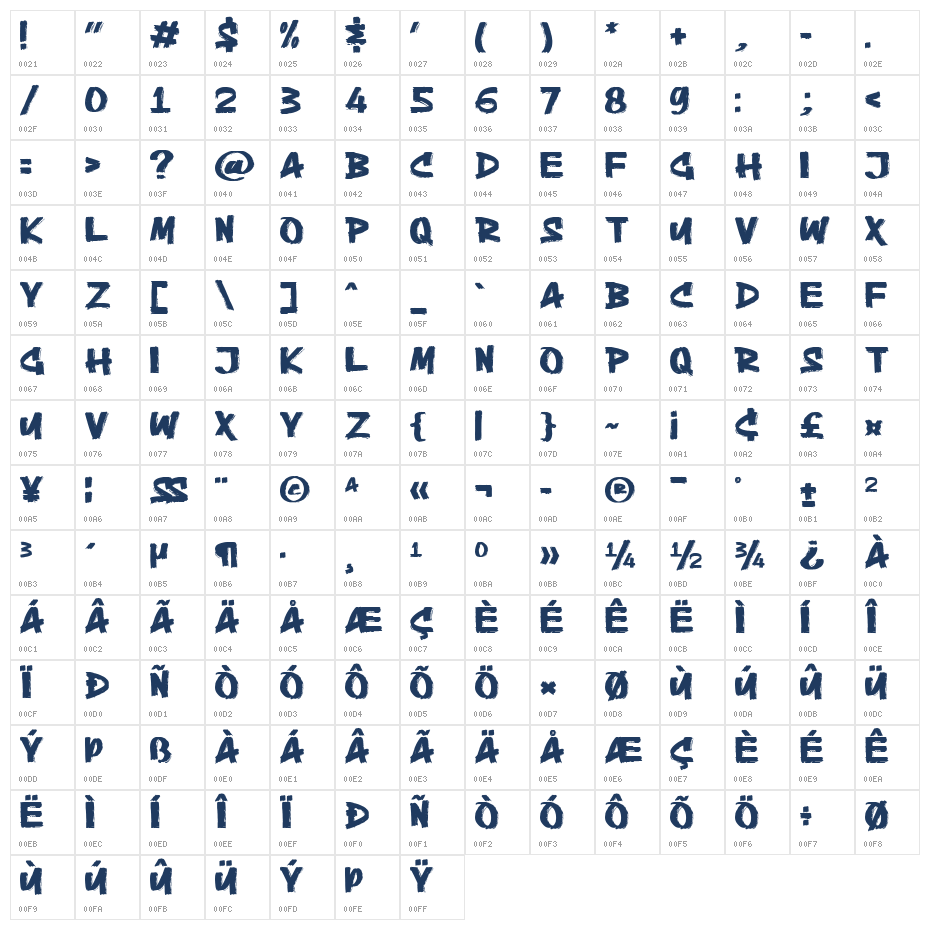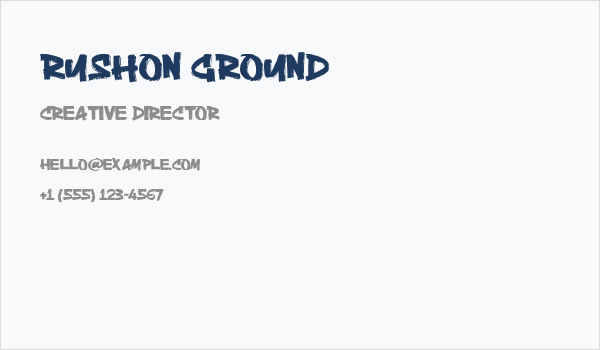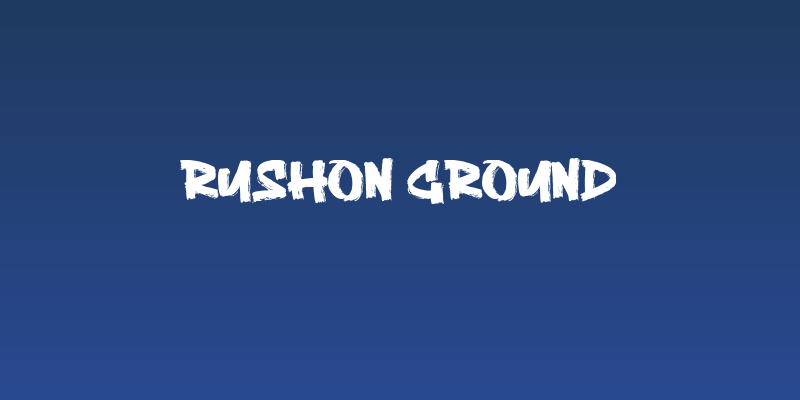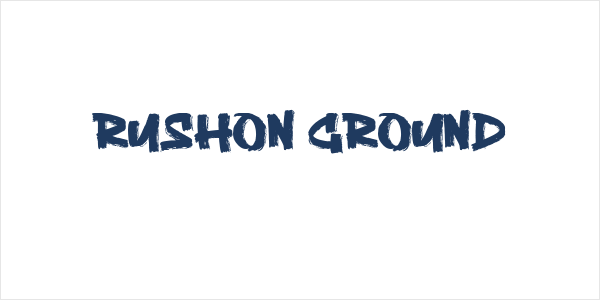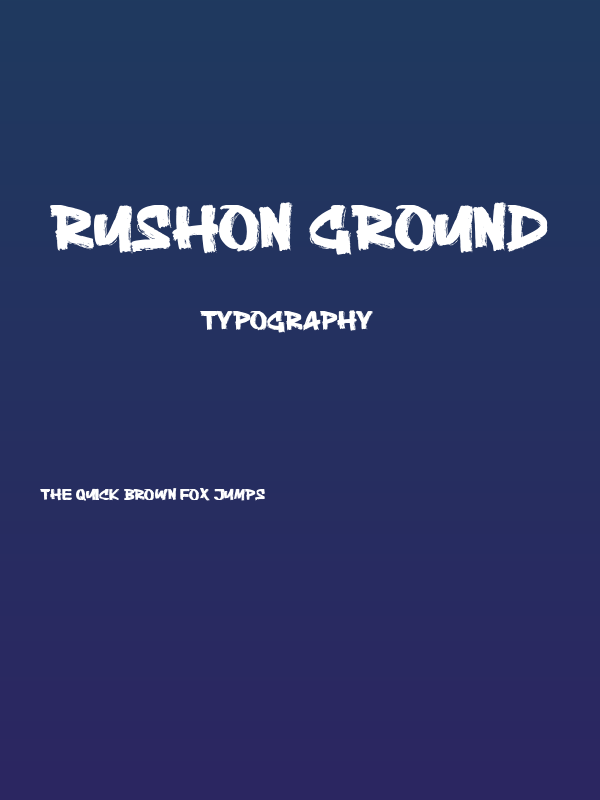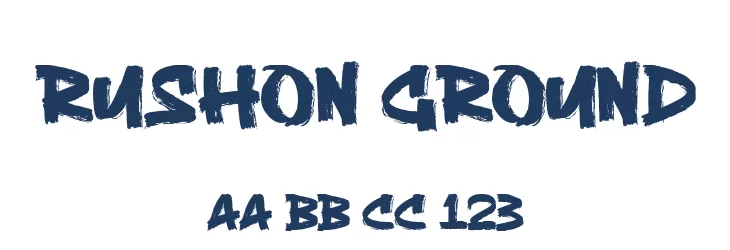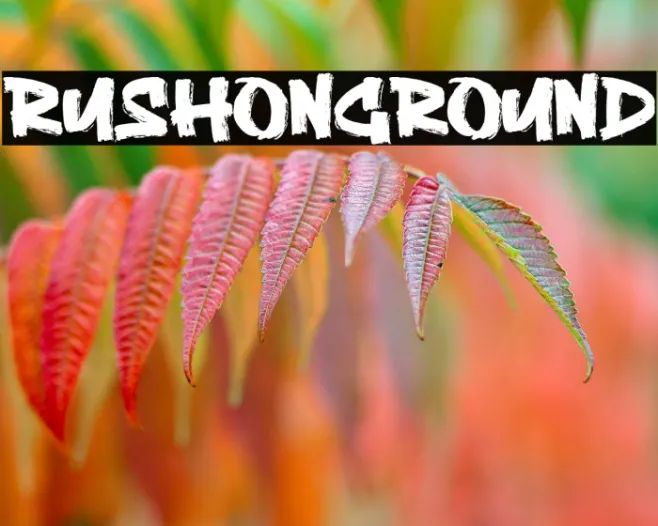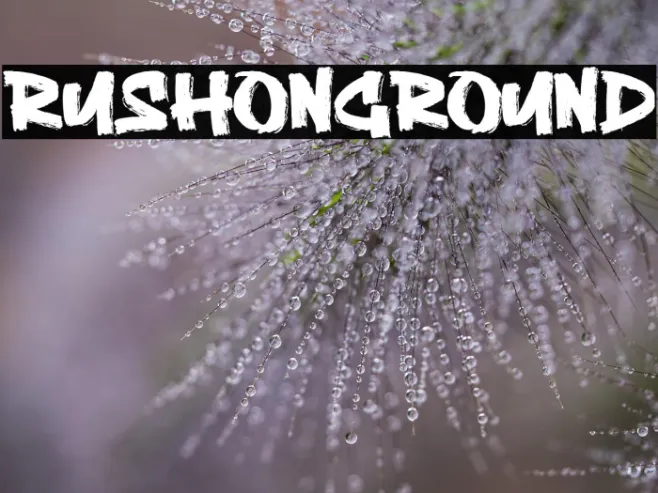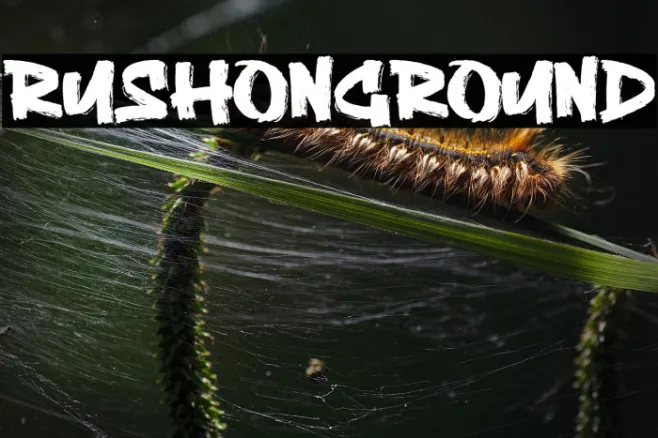
Rushon Ground Font
Rushon Ground Description
Bold, brush-stroke style font with a casual, energetic appearance.
Rushon Ground
| Overall Style | Casual, Artistic, Dynamic |
| Use Case | Headlines, Posters, Logos, Creative branding |